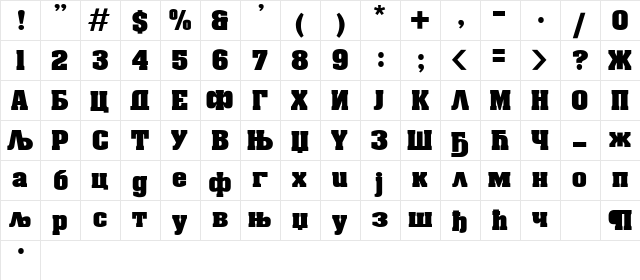
Aardvark Cirilica Bold Font Preview
Aardvark Cirilica Bold
Aardvark Cirilica Bold Font Details
Design Context for Aardvark Cirilica Typeface
Aardvark Cirilica is a composed and adaptable typeface that performs quietly and consistently across a wide range of design contexts. The heavy weight commands attention and anchors typographic hierarchies.